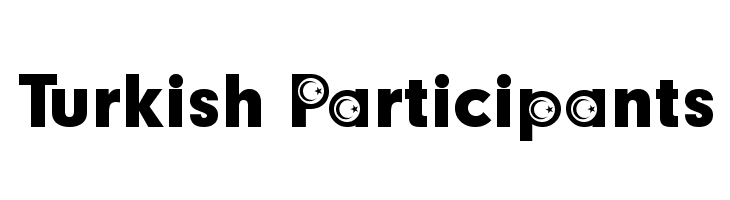
A bold, angular font with a futuristic, geometric style.
Decorative maritime-themed dingbat set with bold, vintage illustrations.
Ornate cherub and religious-themed dingbat illustrations.
A bold, italicized font with a halftone effect, perfect for dynamic designs.
( Fonts by Din Studio - Donis Miftahudin - Personal-use only. For commercial use please contact owner. )
A bold, dynamic serif font with a classic yet modern appeal.
( Fonts by Jeff Levine. FREEWARE )
A collection of tool-themed icons representing each character.
( Fonts by NJ Studio - Personal-use only. For commercial use please contact owner. )
A fluid, script-style font with a personal, signature-like appearance.